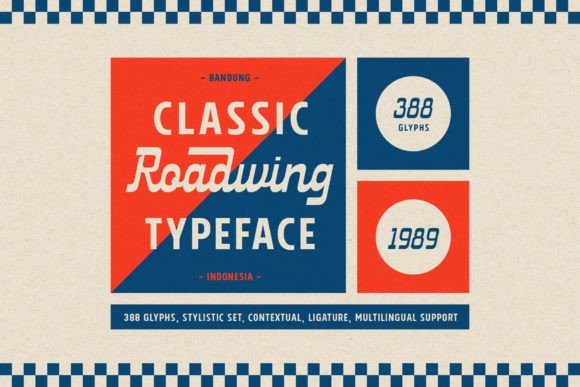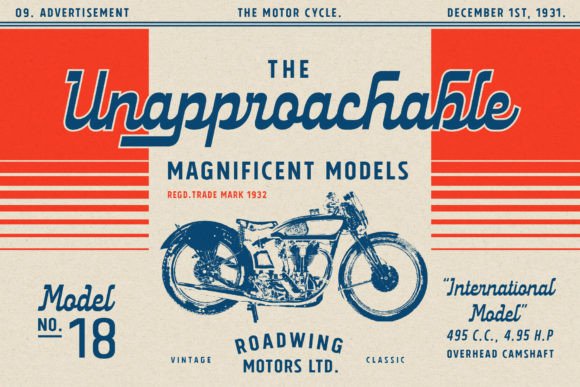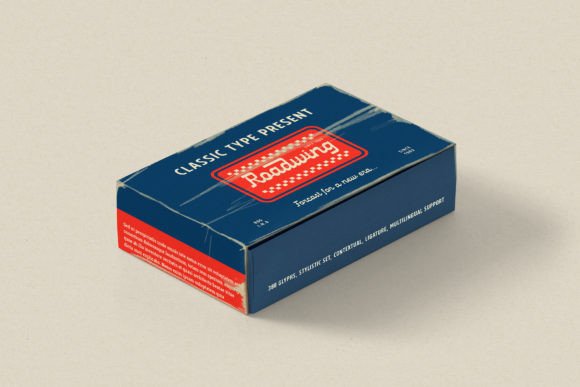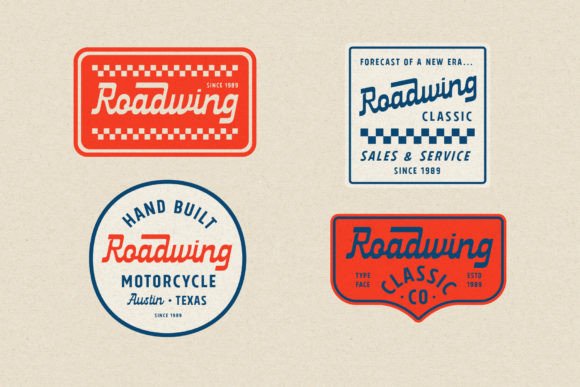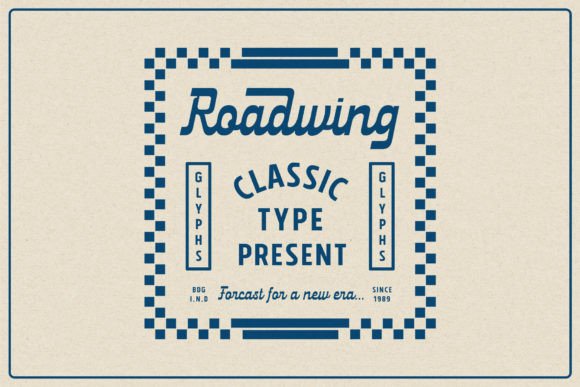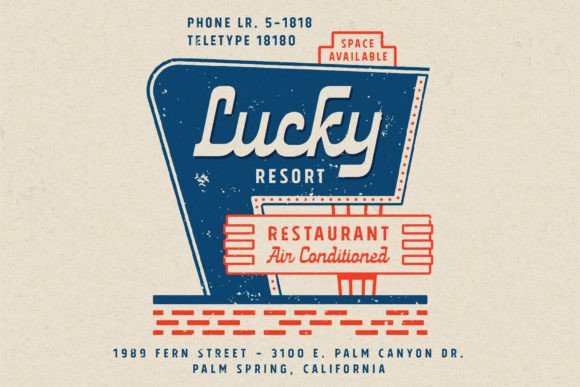
Discover the Timeless Elegance of Roadwing Font
Have you ever found yourself browsing through old photographs or vintage car magazines, mesmerized by the classic designs of yesteryear? That’s exactly the kind of inspiration that fuels the creation of the Roadwing Font, a typography masterpiece that embodies the essence of bygone eras. Designed to evoke a sense of nostalgia and sophistication, this font is a must-have for designers looking to add a touch of timeless elegance to their creative projects.
As a valuable resource for designers, the Roadwing Font offers unparalleled versatility, with contextual alternates, stylistic alternates, and ligatures that provide endless customization options. Whether you’re working on a logo, signage, or promotional material, this font is sure to bring a sense of authenticity and heritage to your design. And the best part? You can download it for free, making it an essential addition to your design toolkit.
Honest Review: Roadwing Font
I recently stumbled upon the Roadwing Font while searching for a free download to enhance my creative project. I was thrilled to find a high quality font that would add a touch of sophistication to my design. The Roadwing Font is a game-changer for designers looking for a unique and modern font.
- ✨ High quality design with a transparent background, making it easy to use on any background.
- ✨ Versatile font suitable for various creative projects, from logos to brochures.
- ⚠️ Limited number of font styles available.
Overall, I’m impressed with the Roadwing Font and would recommend it to designers looking for a high-quality, free download. It’s an excellent design resource for creative projects, and I’m excited to see how it will elevate my future designs.
The Roadwing Font is ideal for creative projects, such as graphic design, digital art, and typography. It’s also great for use in branding, logos, and signage.